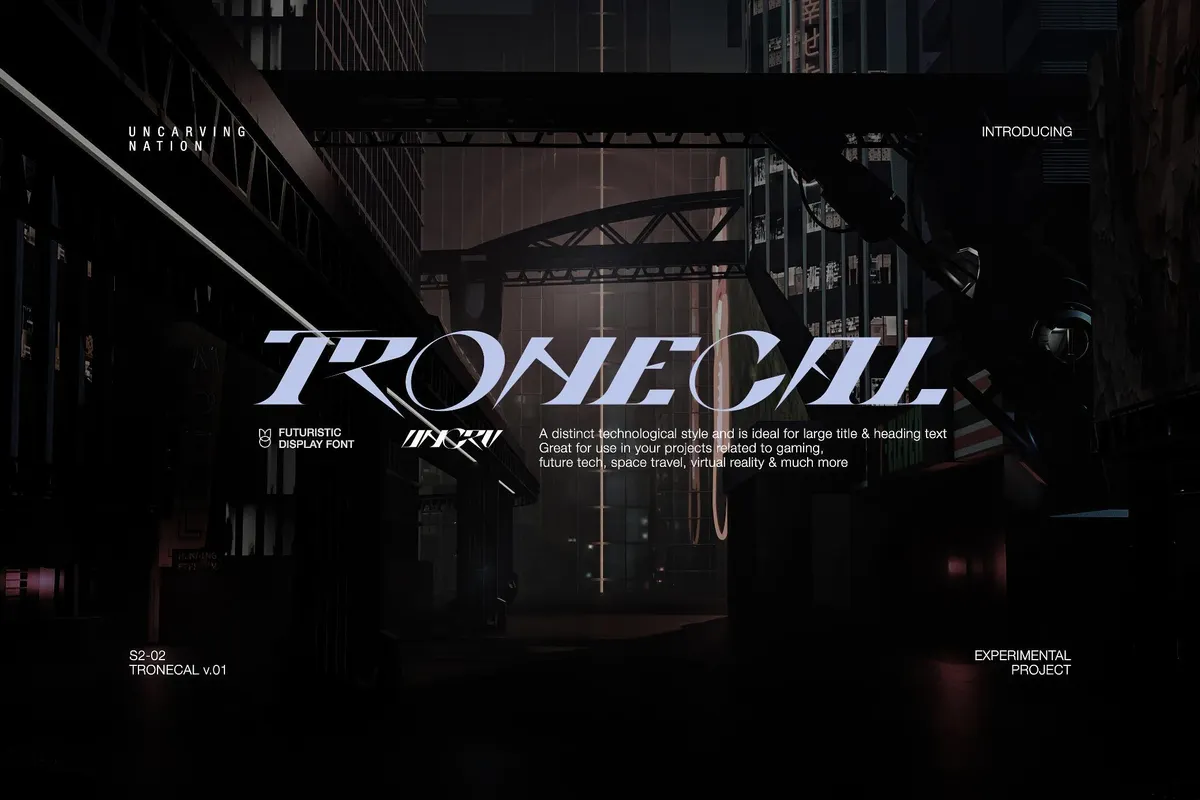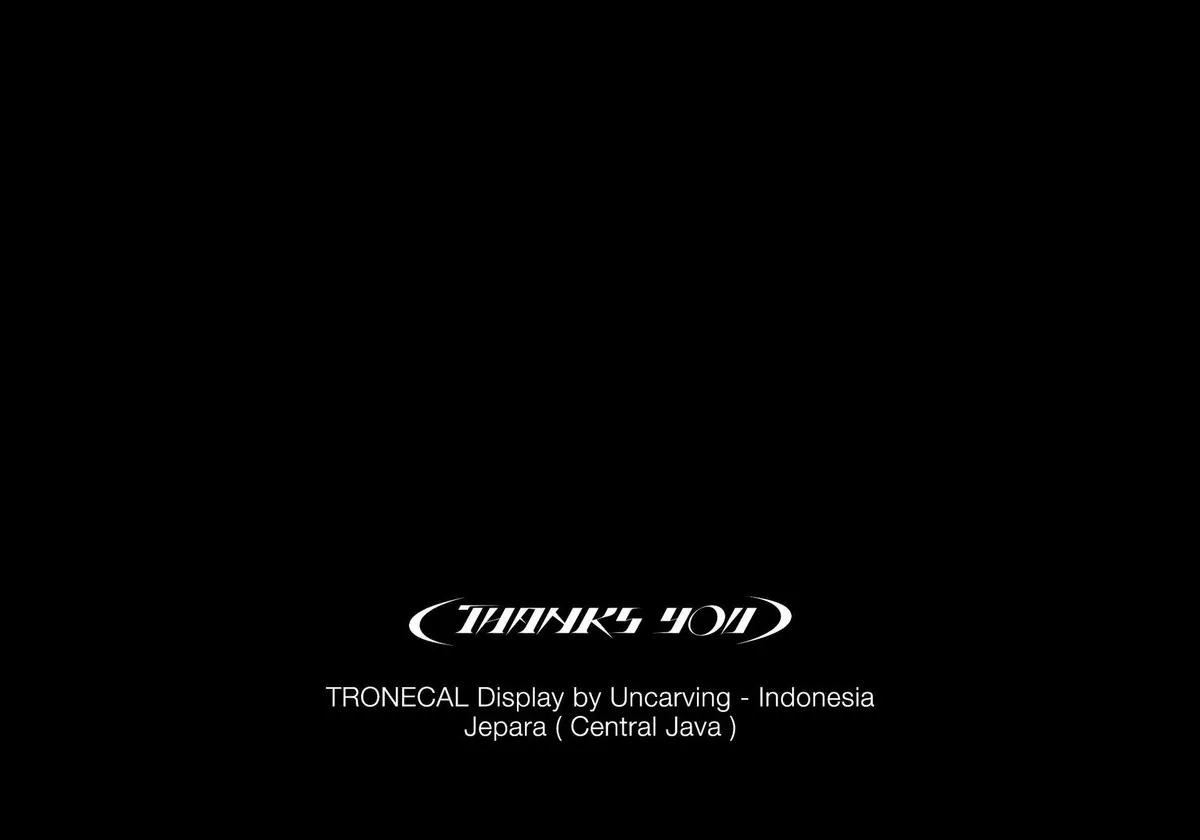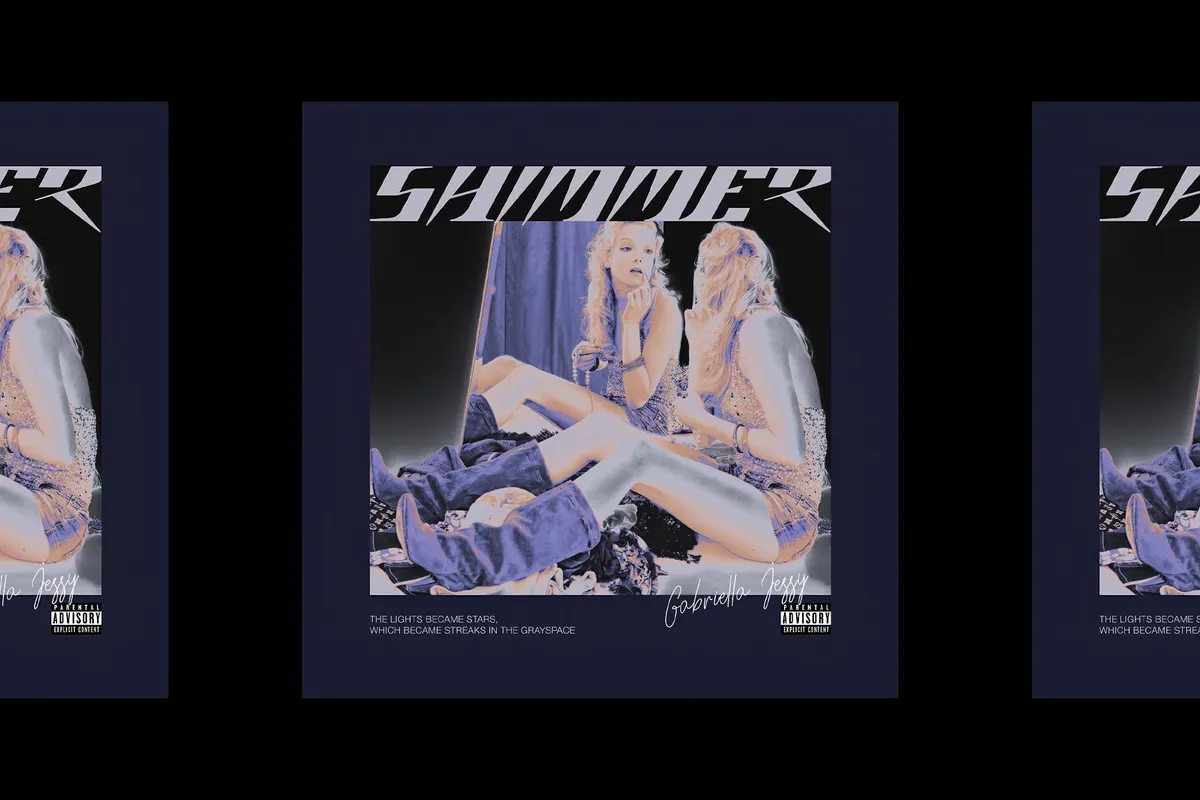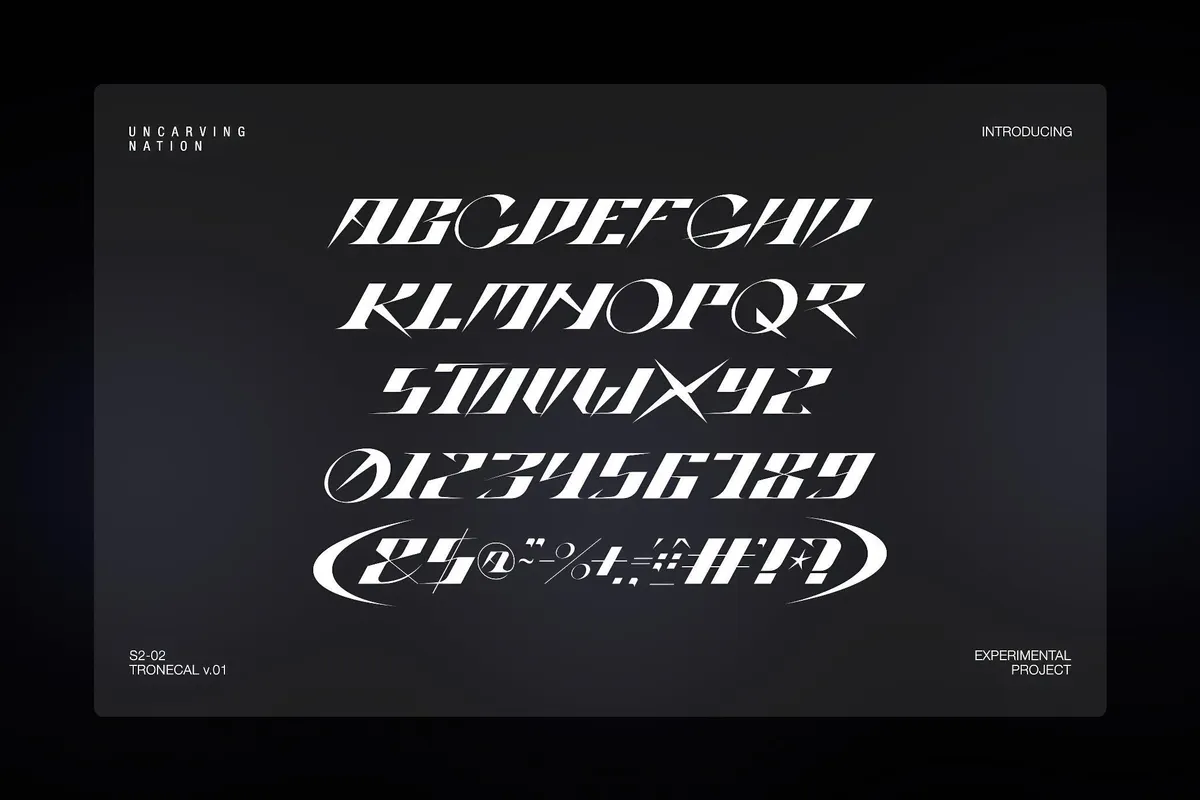
Tronecal — Display Font
Futurism meets industrial grit with Tronecal, a display font that feels like a glimpse into the future. Its sleek, bold strokes carry an edge of modern minimalism while subtly drawing inspiration from Japanese lettering.
Tronecal feels both cutting-edge and grounded in tradition, wow! While blending multiple styles can often be a risky move, this font does it effortlessly, creating a design that feels perfectly balanced. Its glyphs move with precision and power, making it hard to pin down the essence of the font — perhaps that’s its strength. The full set includes uppercase, lowercase, multilingual support, numerals, and punctuation, making it versatile for any project. Tropical will be particularly suitable for anything related to gaming, IT, space travel, VR/AR, and more.